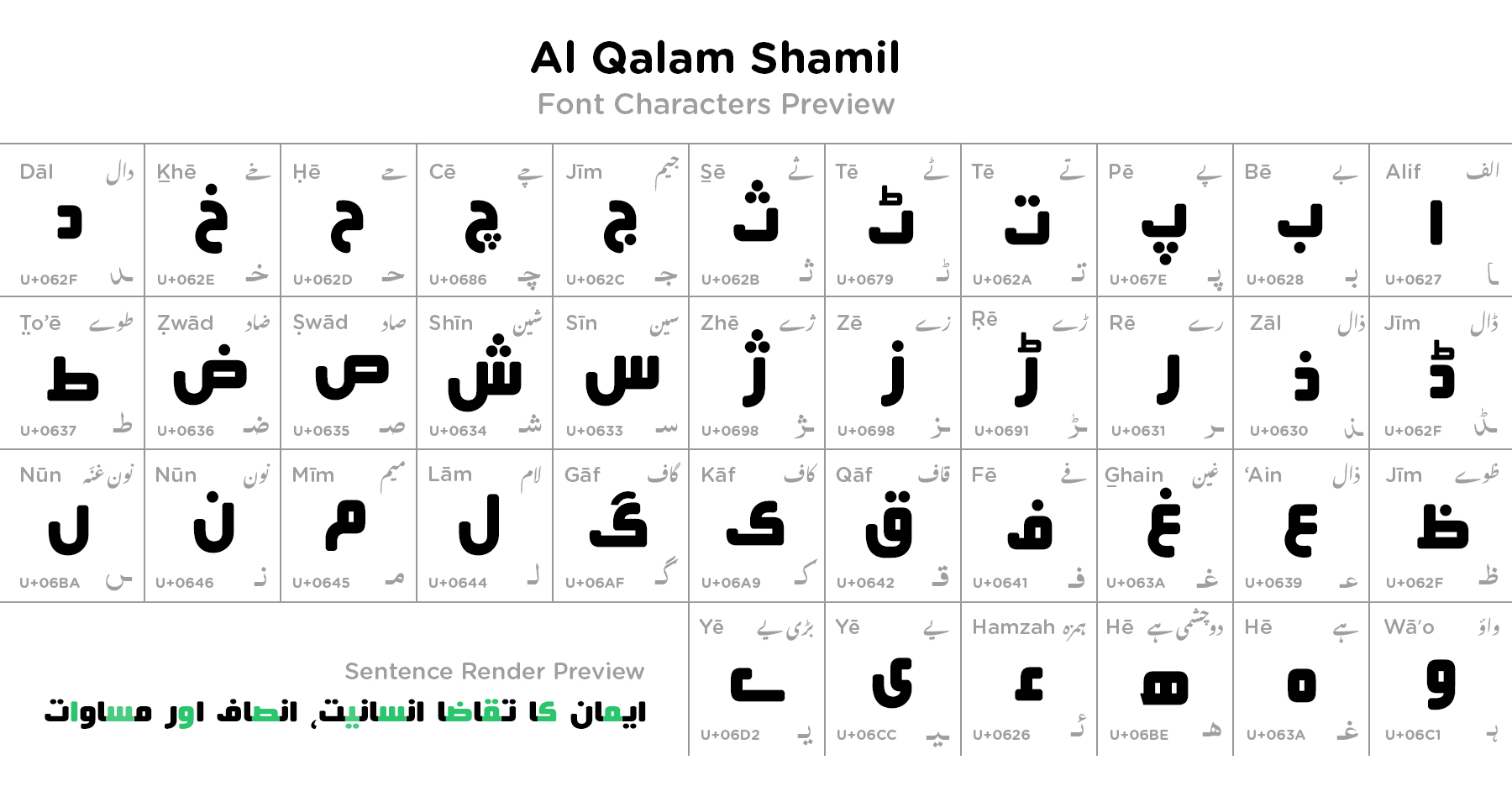
Introducing Al Qalam Shamil, a delightful Urdu font designed by Attari Qadri and Muhammad Ishtiaq Ali Attari. This font was released on January 30, 2016, and it brings a modern, fat, and bubbly aesthetic to your projects. Inspired by the Naskh script, Al Qalam Shamil features 219 characters and 335 glyphs, making it compatible with Urdu, Arabic, Latin, and more languages. Its high legibility on screen, even at smaller resolutions, ensures readability across various platforms. However, it's best suited for shorter text blocks due to its playful and bubbly appearance. With a thick and constant thickness, along with impactful strokes, this font aims to deliver a sense of fun and creativity. It is available, however, in only regular font weight. So, it does not have much usability. Its natural and soft style, smooth corners, and monospaced width add to its charm. The Font is perfect for branding, children's book covers and products, t-shirt designs, posters, and any project where a playful touch is desired. With its compatibility with Unicode blocks, this font offers versatility and ease of use in various design applications.